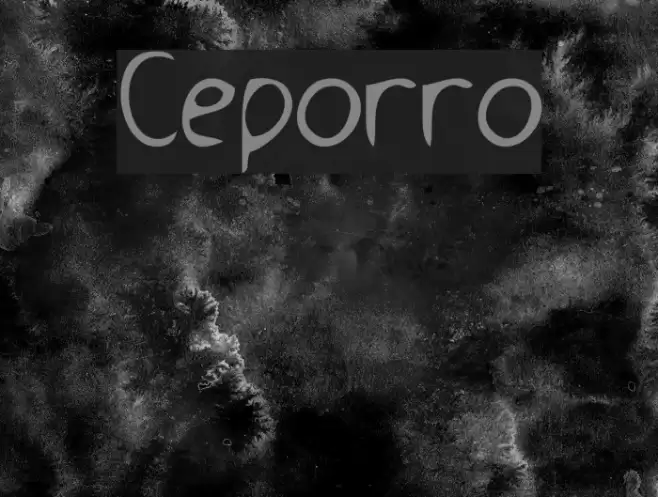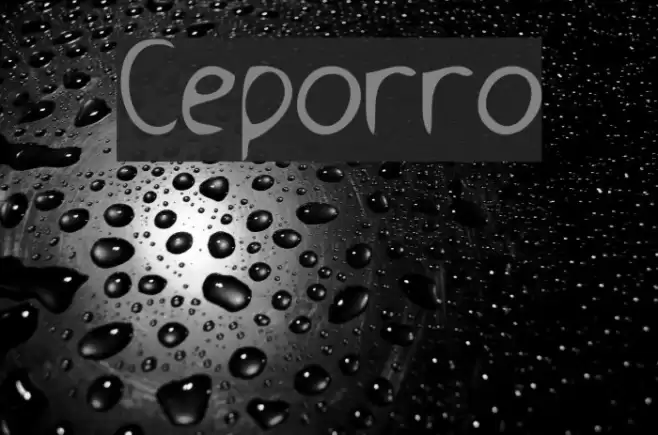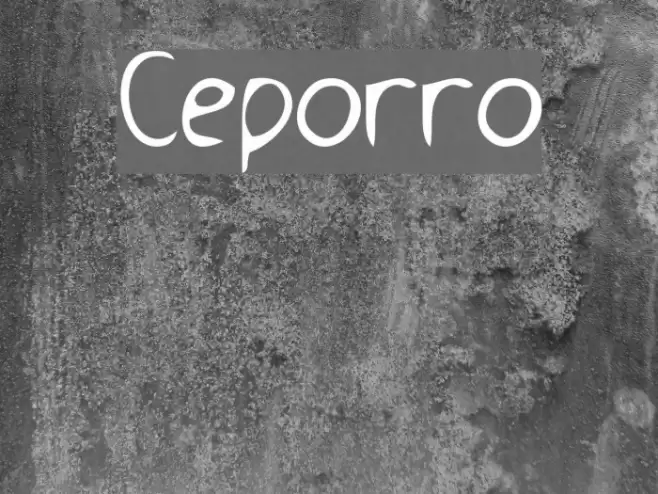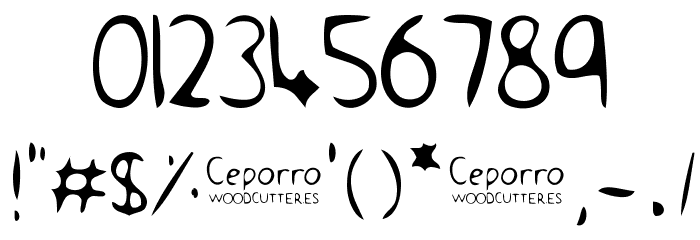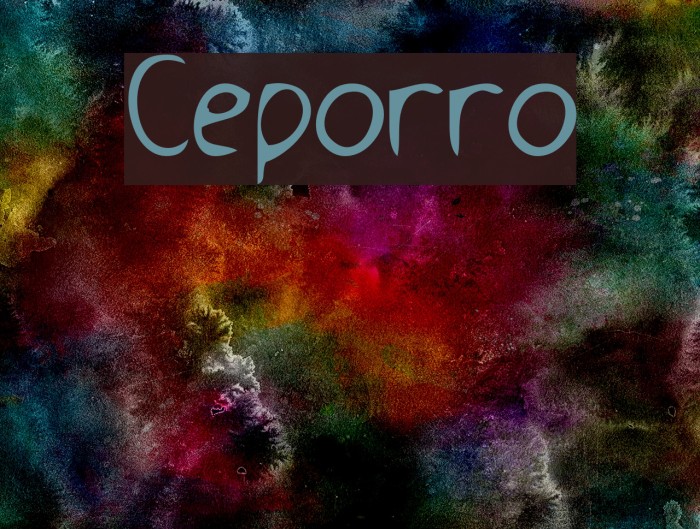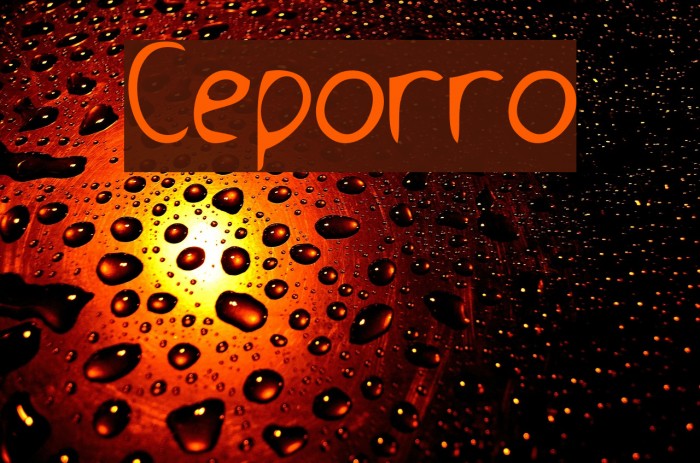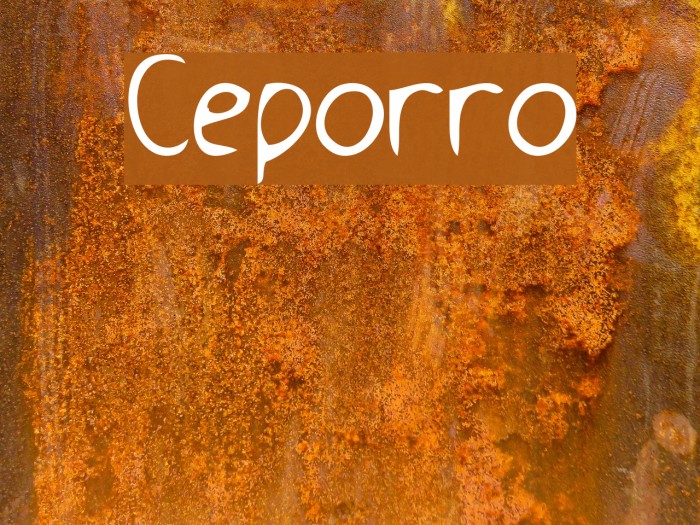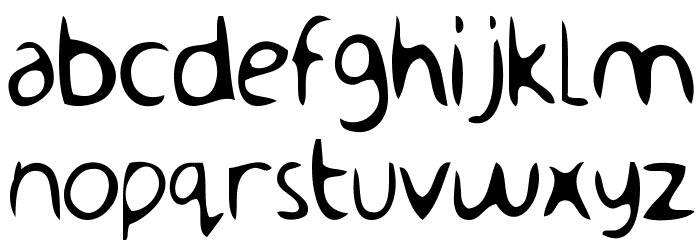
Ceporro Font
Ceporro Description
This font features a playful and whimsical design with a hand-drawn appearance. The characters are irregular and slightly uneven, giving it a casual and informal feel. The strokes are bold and rounded, with varying thickness that adds a dynamic quality to the text. The uppercase and lowercase letters maintain a consistent style, while the numbers and special characters complement the overall aesthetic. This font is ideal for projects that require a fun and approachable look, such as children's books, creative posters, or branding for playful products.
A playful, hand-drawn font with bold, irregular strokes from Uncategorized fonts.
- Proposed Projects: Children's books, creative posters, playful branding, casual invitations.
- Overall Style: Playful, Whimsical